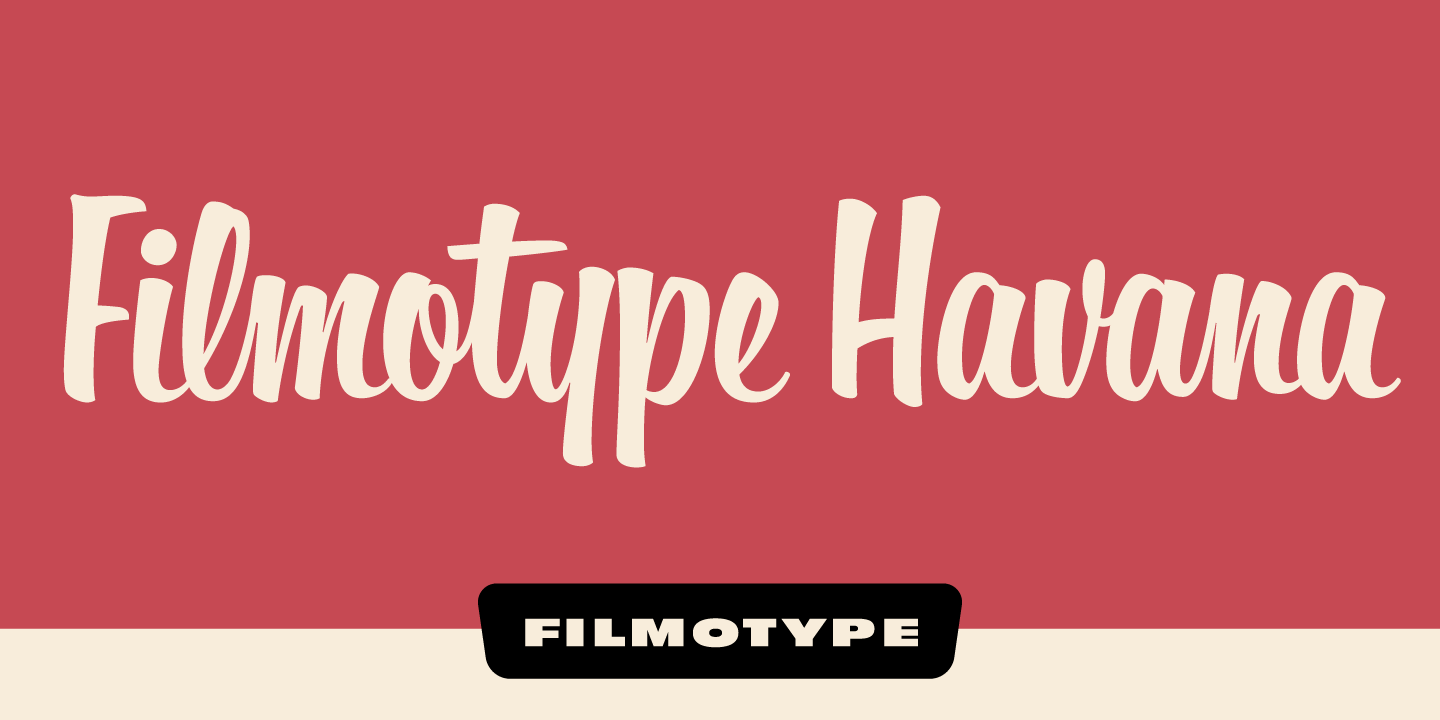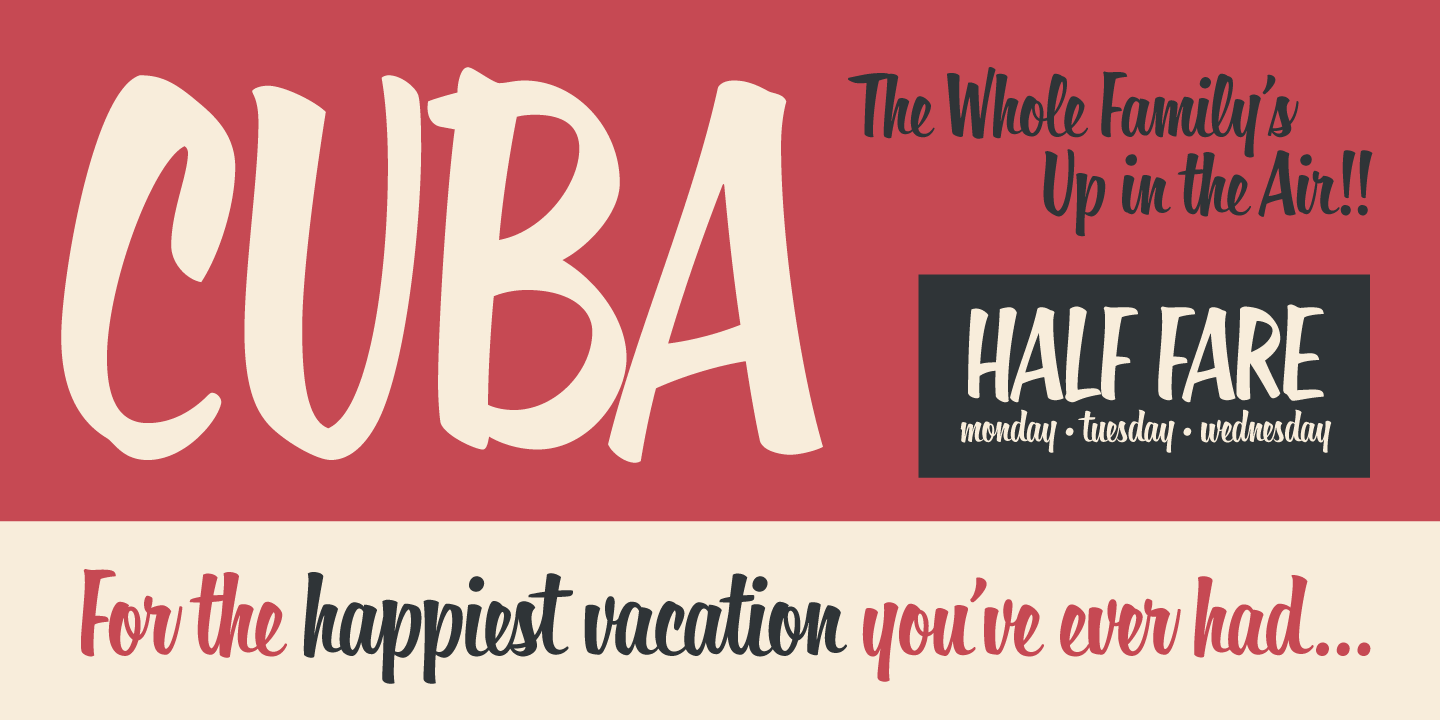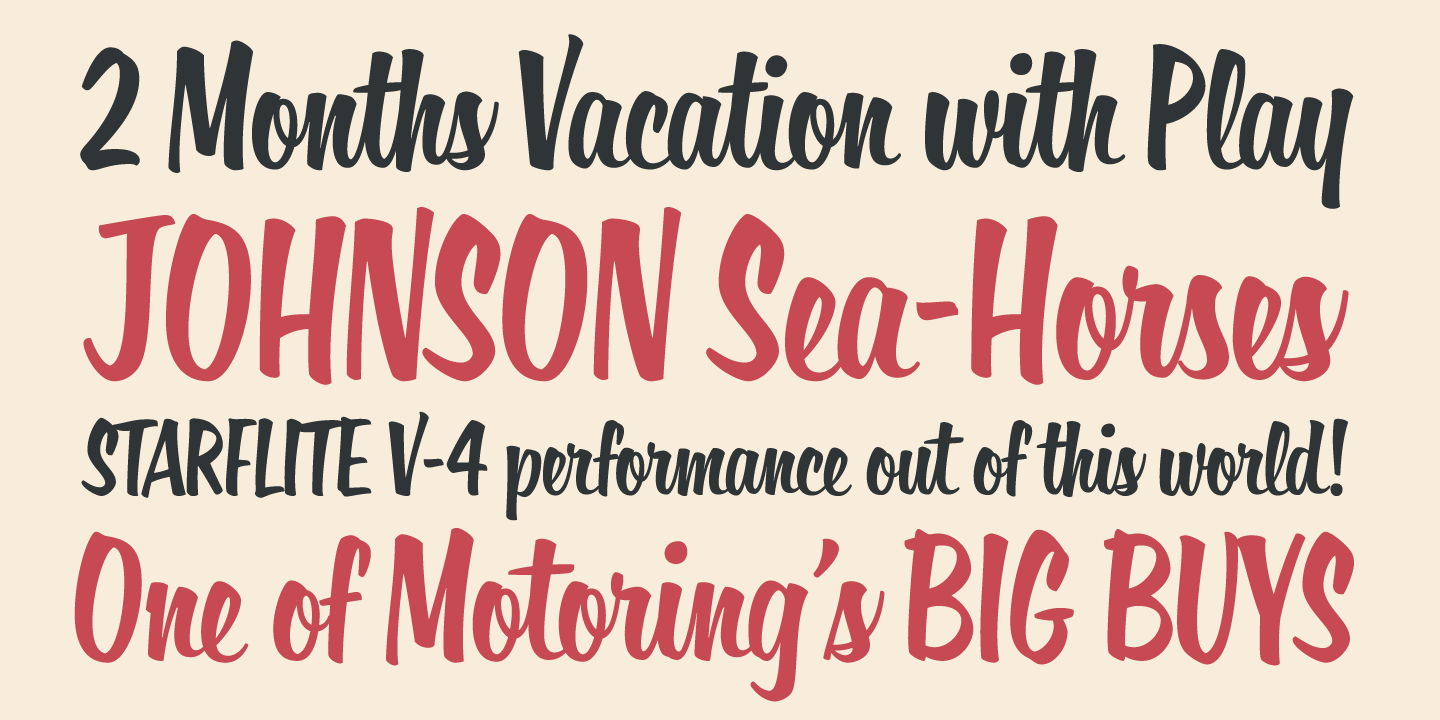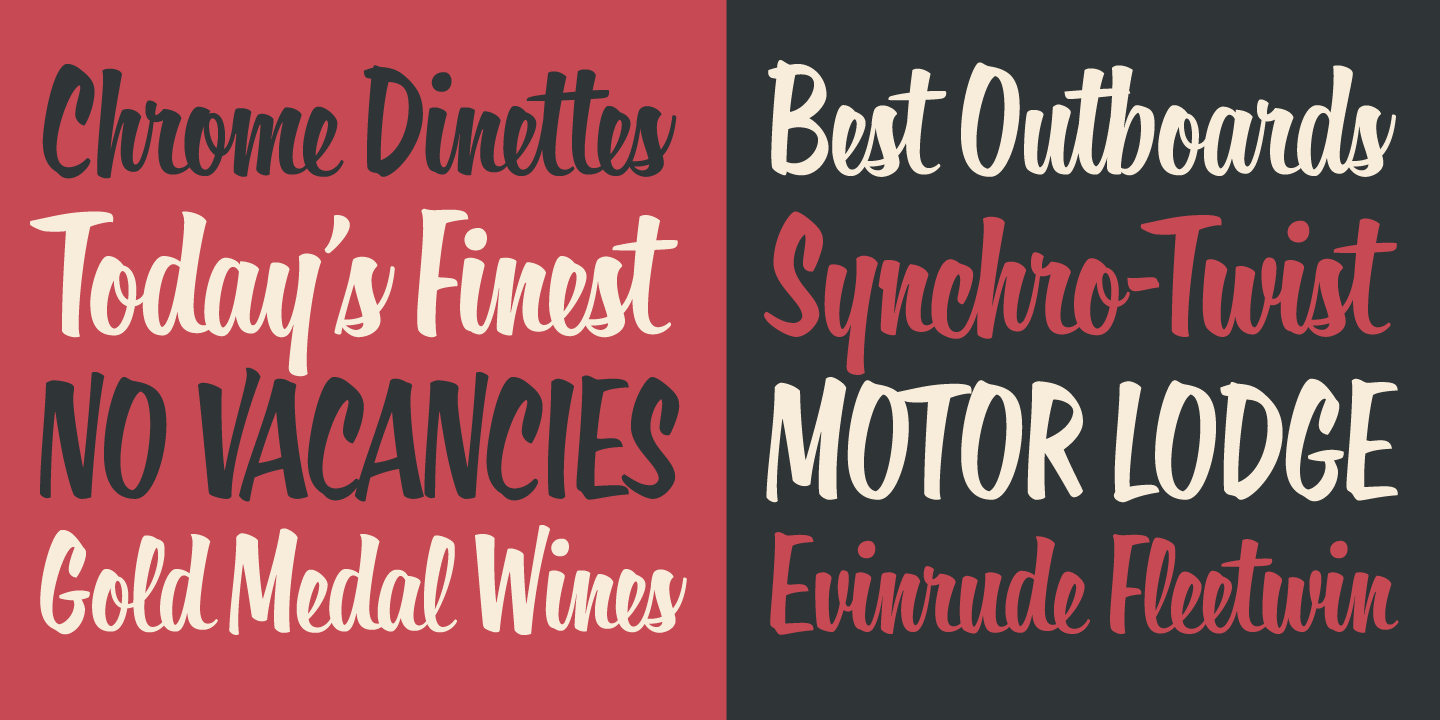
Filmotype Havana
Filmotype Havana was among the company's earliest connecting brush lettered casuals and was Introduced by Filmotype in 1955 as a smoother more condensed weight of its popular cousin Filmotype Horizon.
Filmotype Havana was developed from the original font filmstrips and includes a full international character compliment, automatic fractionals, ordinals, and a wonderful compliment of alternate characters and ligatures creating a genuine connecting hand painted look in dynamic OpenType format.